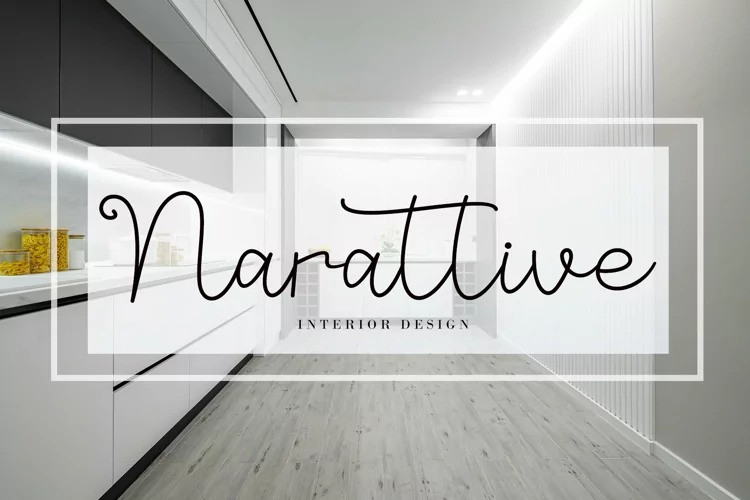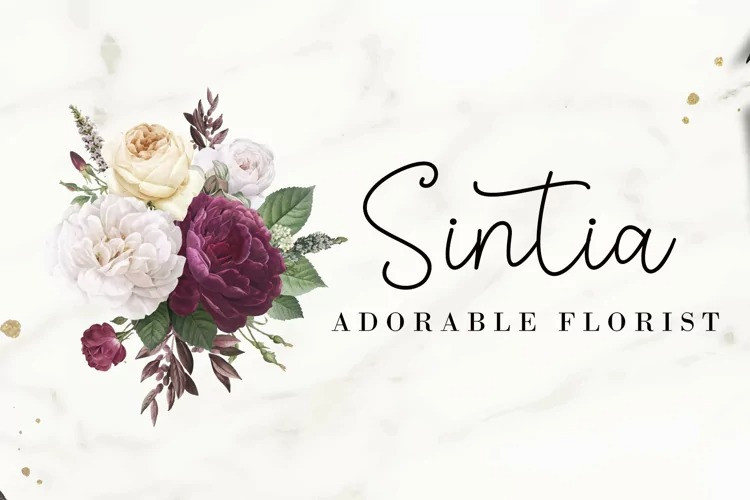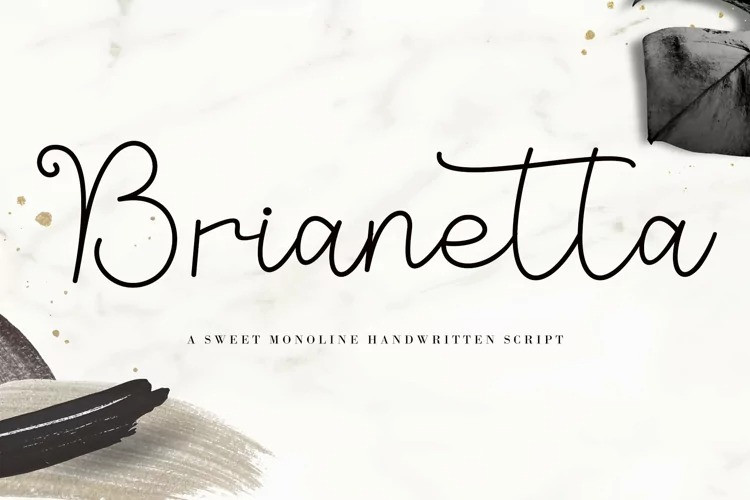
Brianetta Handwritten Font
Brianetta is a romantic and delicate monoline script font. It is PUA encoded which means you can access all of the amazing glyphs and ligatures with ease!